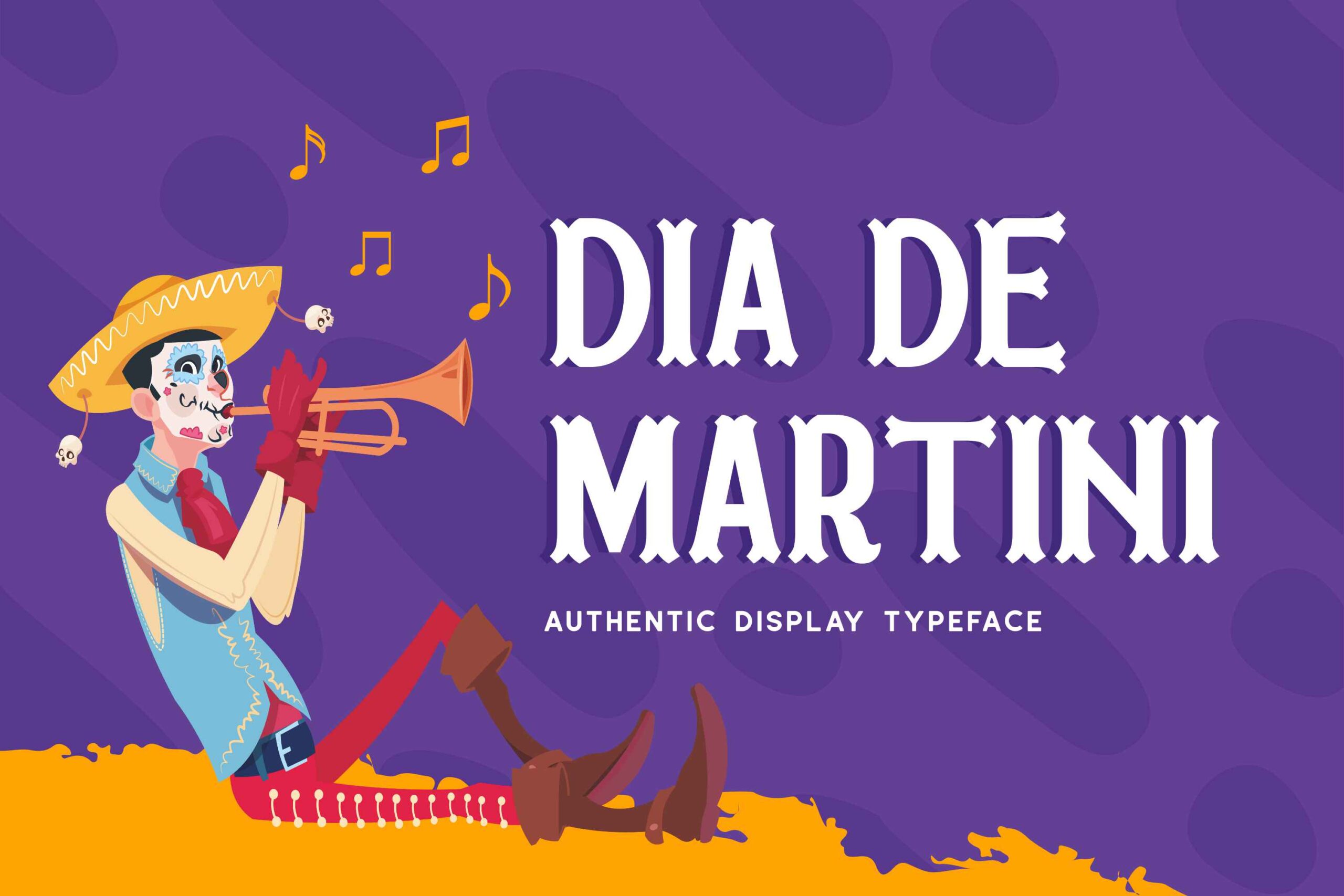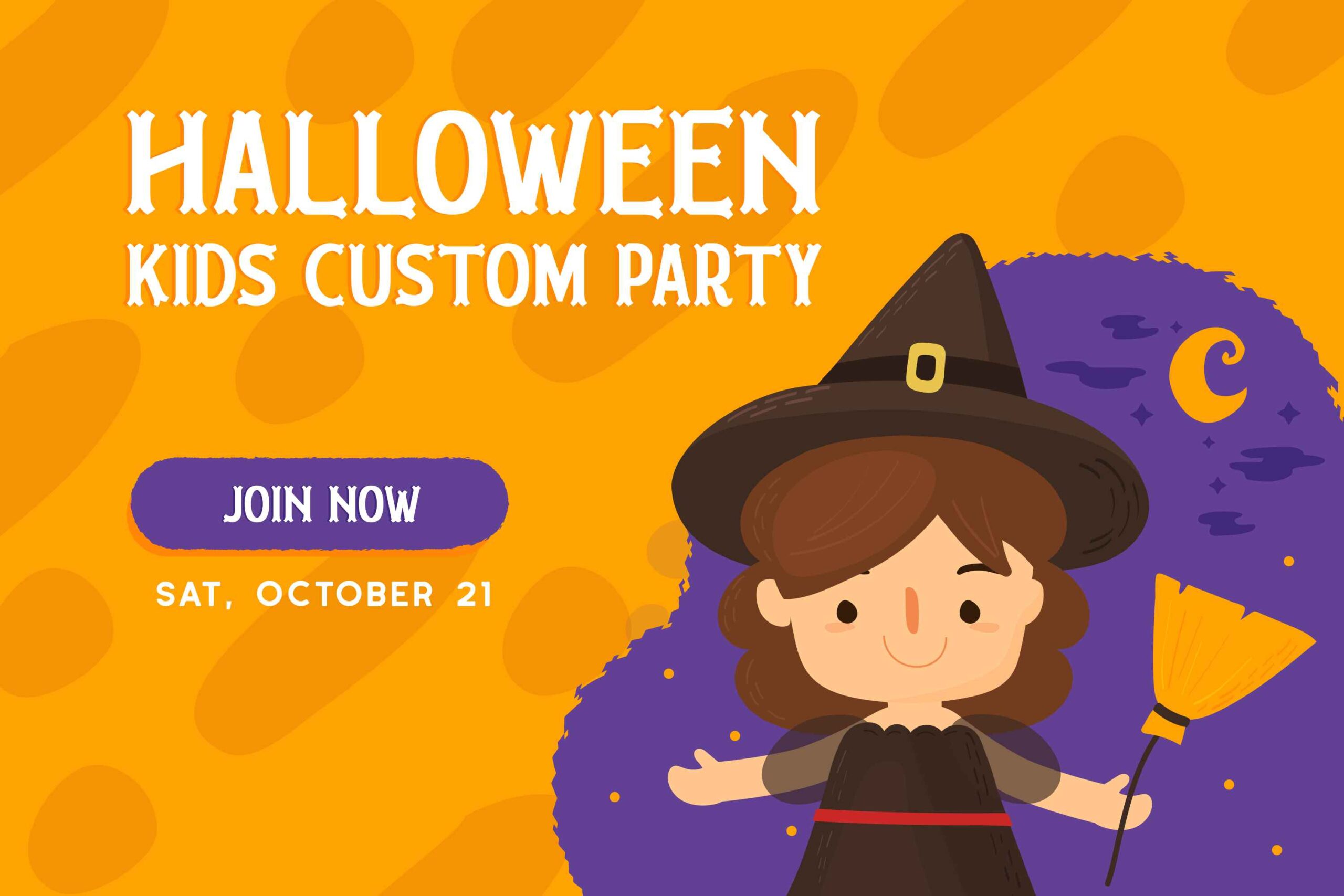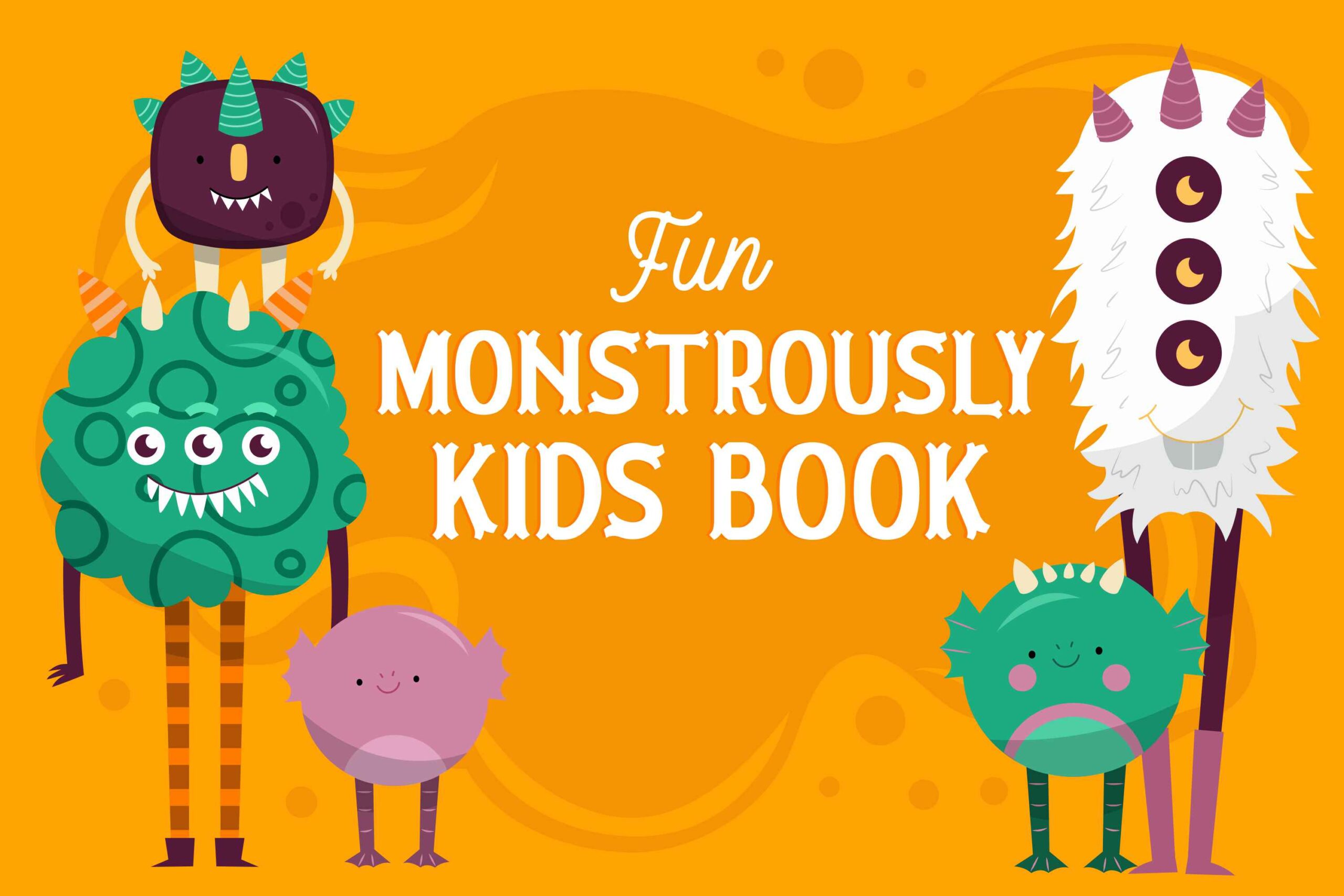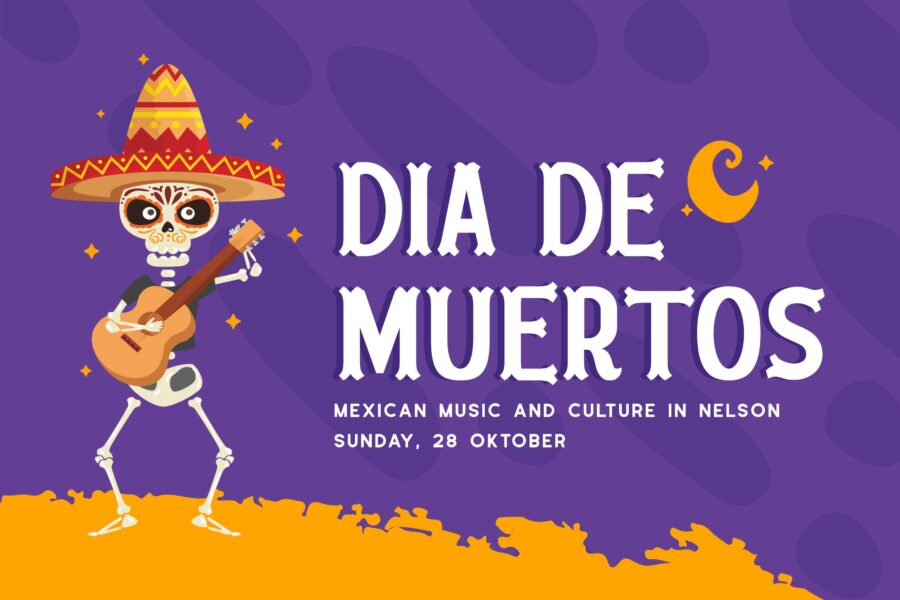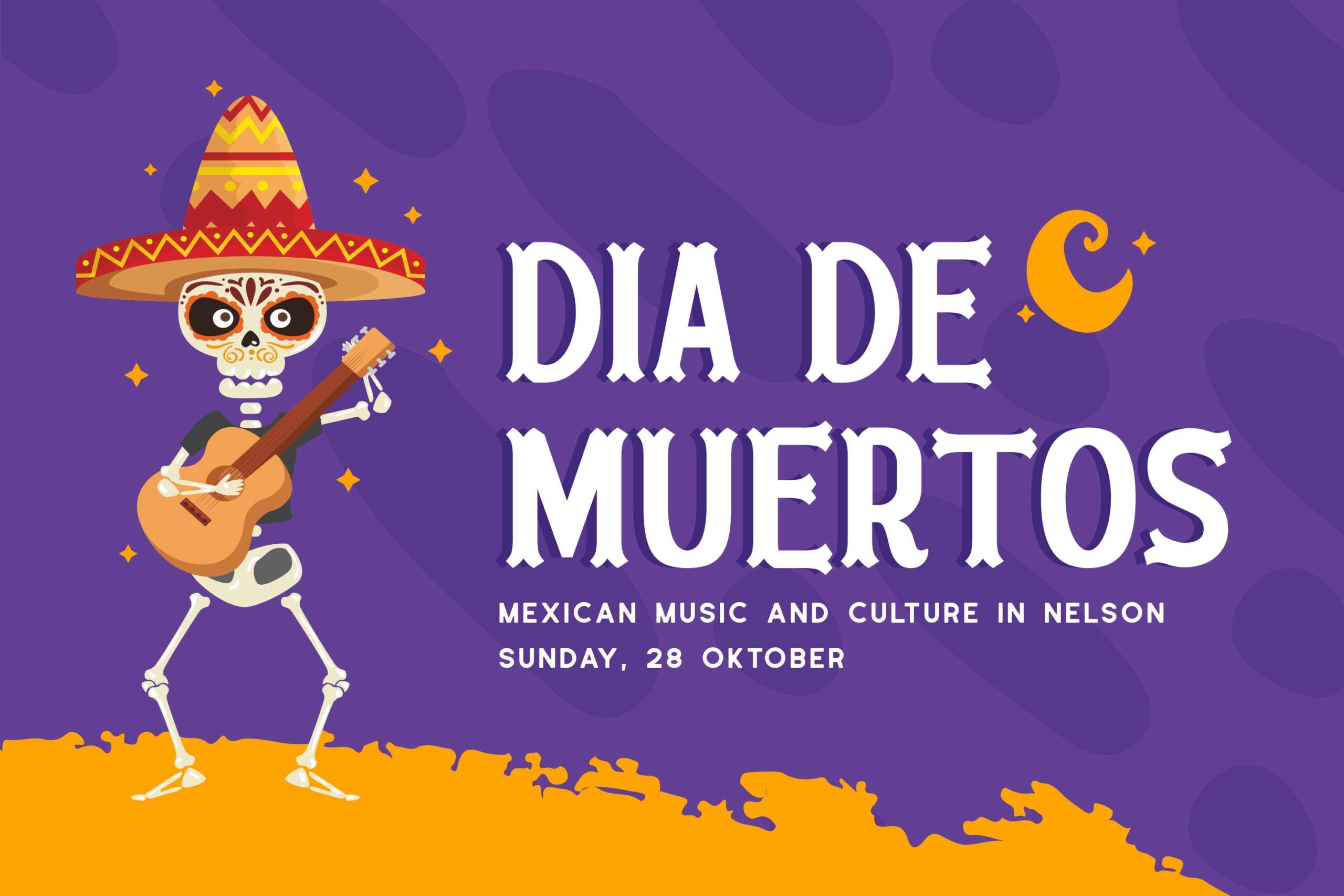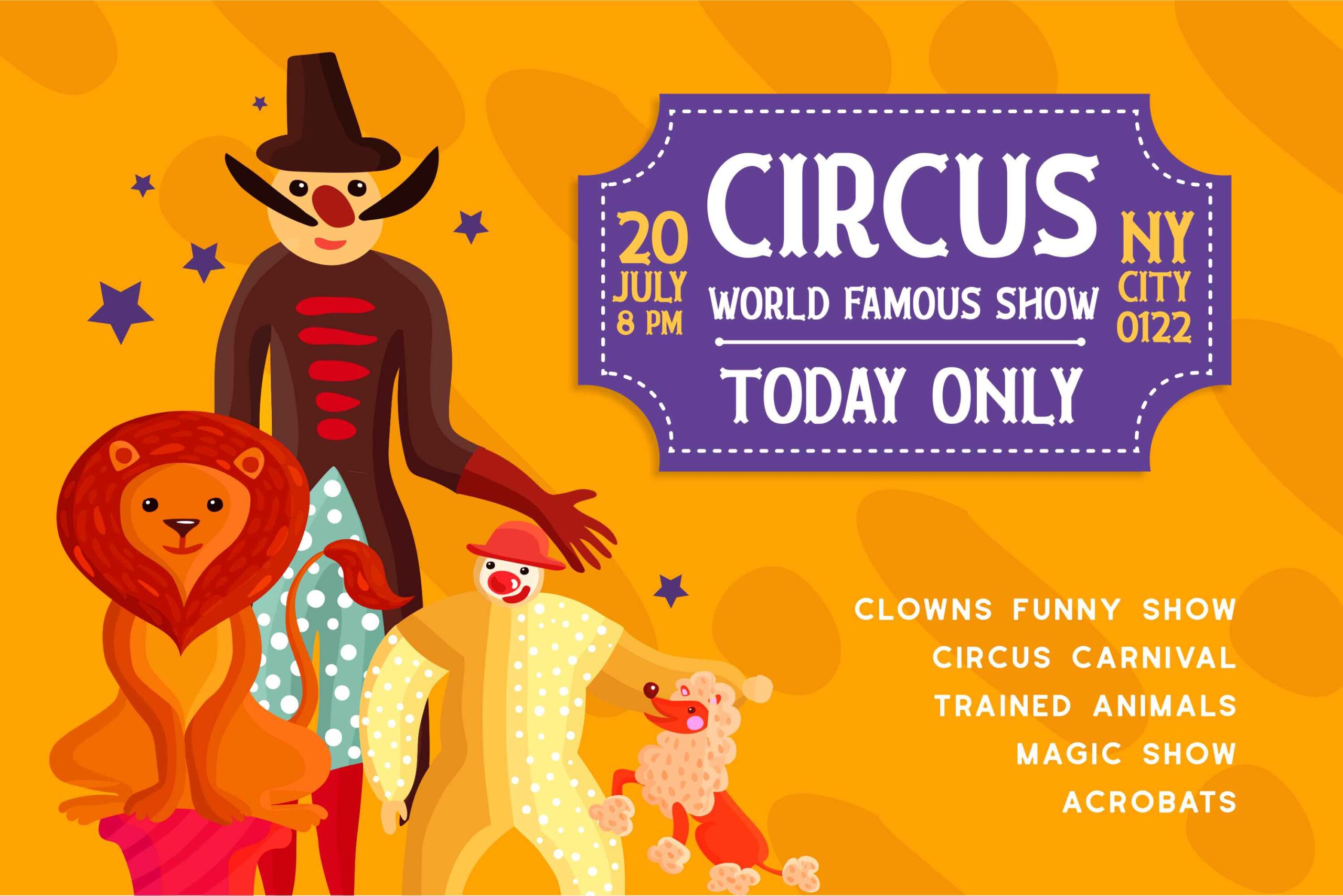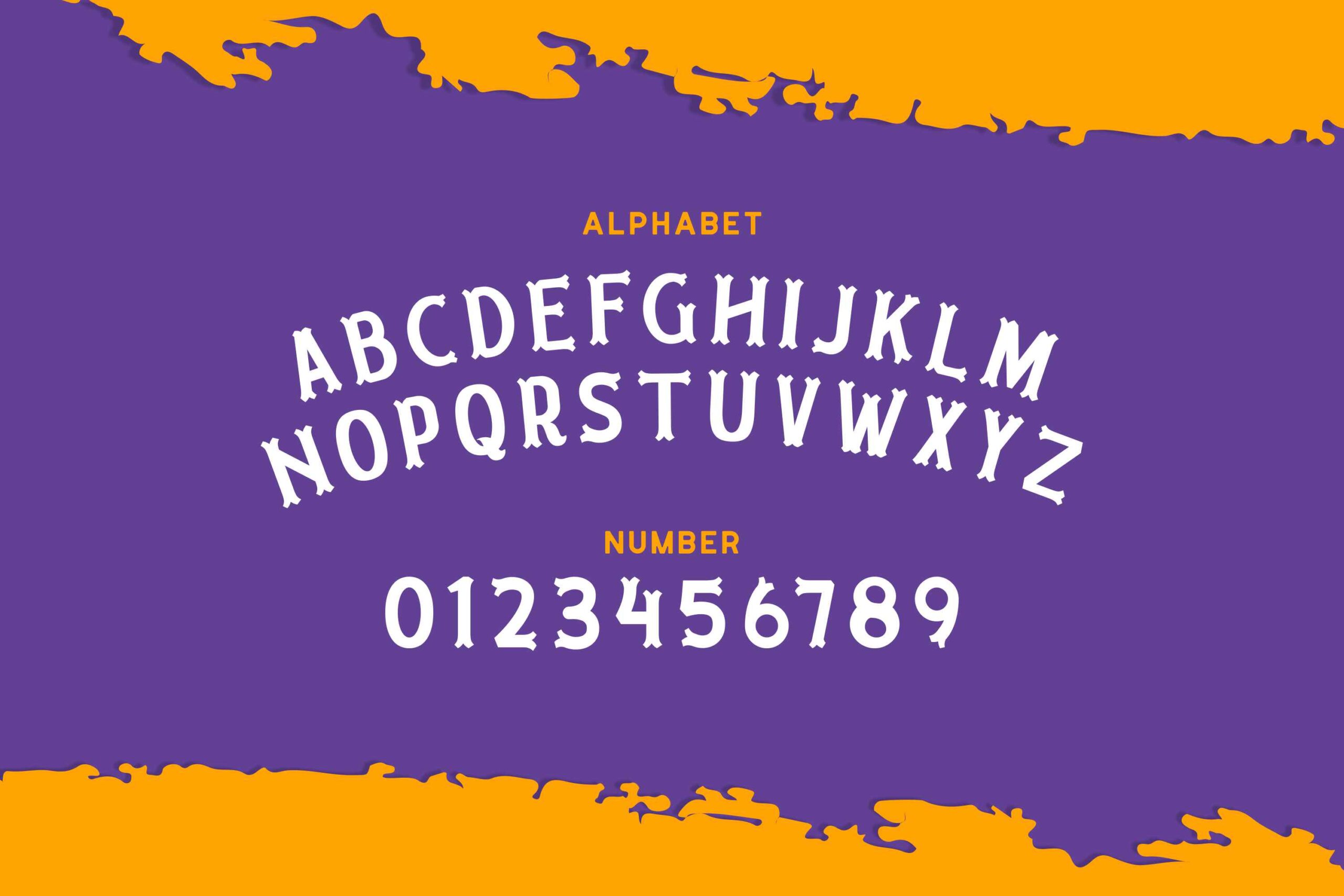
Dia De Martini is a festive and authentic display typeface inspired by the vibrant spirit of Mexican culture, Dia de Muertos celebrations, and circus-style lettering. Its playful curves, unique details, and bold shapes make it perfect for capturing joyful energy and a touch of tradition. Designed to stand out, this font brings life to your creative projects with a balance of fun and authenticity.
Ideal for posters, children’s books, party invitations, Halloween themes, cultural festivals, and branding projects, Dia De Martini adds a charming and whimsical personality to any design. Whether you’re creating event graphics, playful titles, or merchandise, this typeface ensures your message looks bold, unique, and unforgettable.